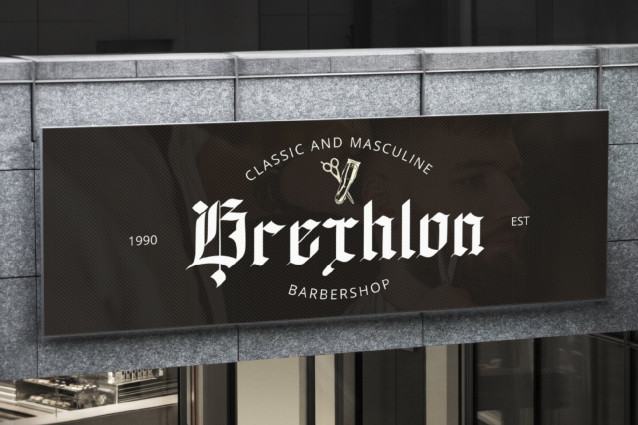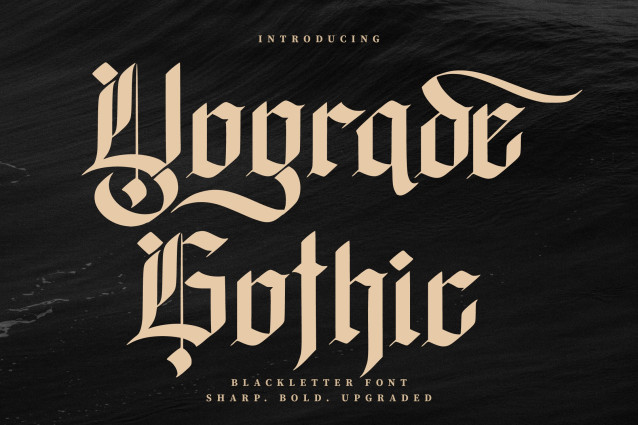
Yograde Font
Yograde Font a blackletter font masterfully crafted to provide a harmonious blend of gothic calligraphy and cutting-edge geometric precision. This intrepid typeface is designed to make an impression, infusing a daring, dominant, yet sophisticated personality into any of your design ventures. Yograde Gothic is characterized by its ultra-sharp terminals and dramatic contrasting strokes, making it the ultimate match for brands aiming to establish a powerful visual presence. Whether your project involves the urban chic of a streetwear label, the vibrant energy of a music poster, or the high-end elegance of luxury packaging, Yograde Gothic ensures your typography exudes a distinct, premium, and dynamic “elevated” quality.